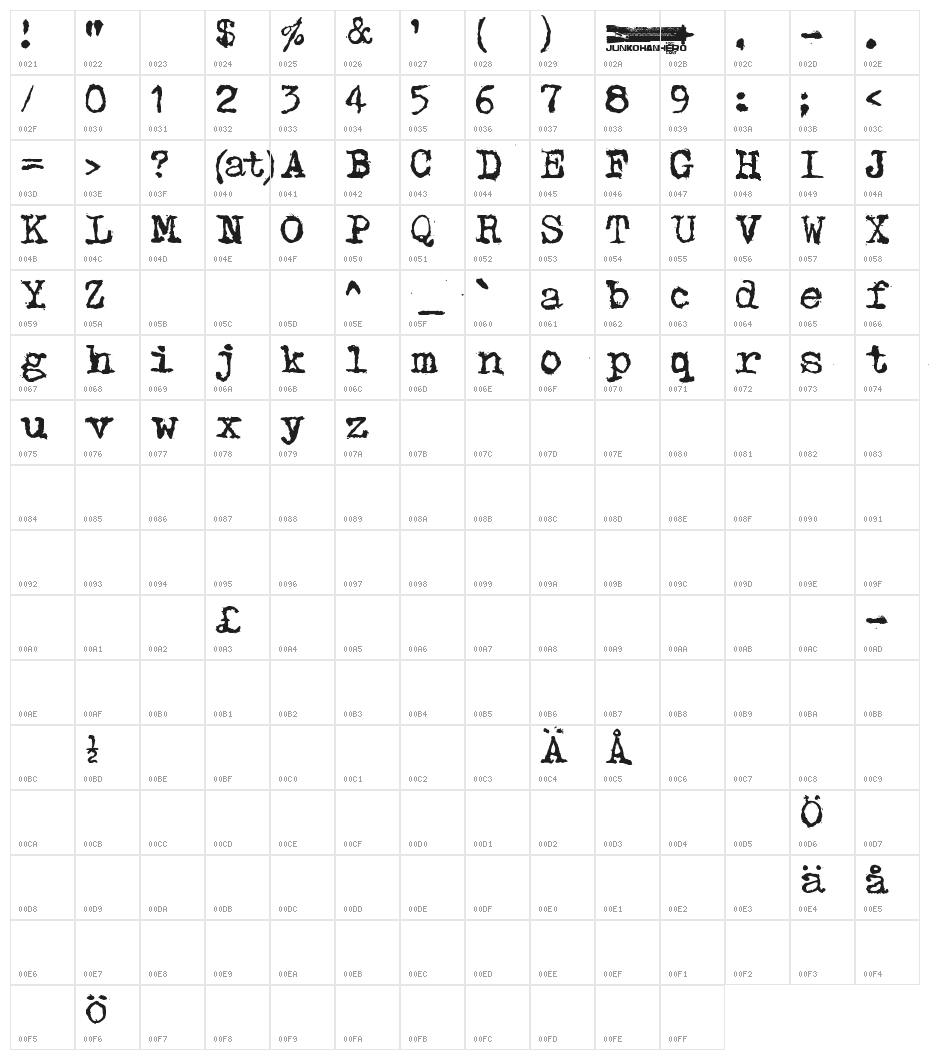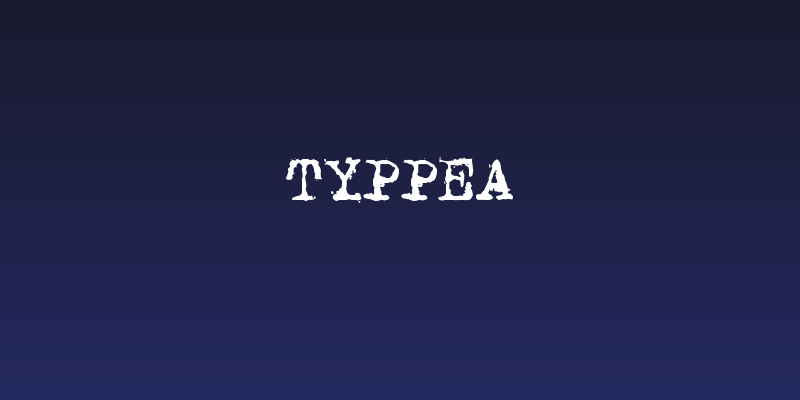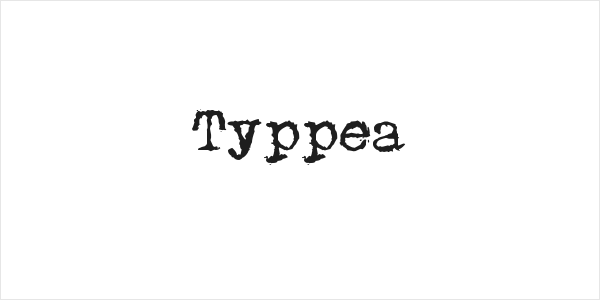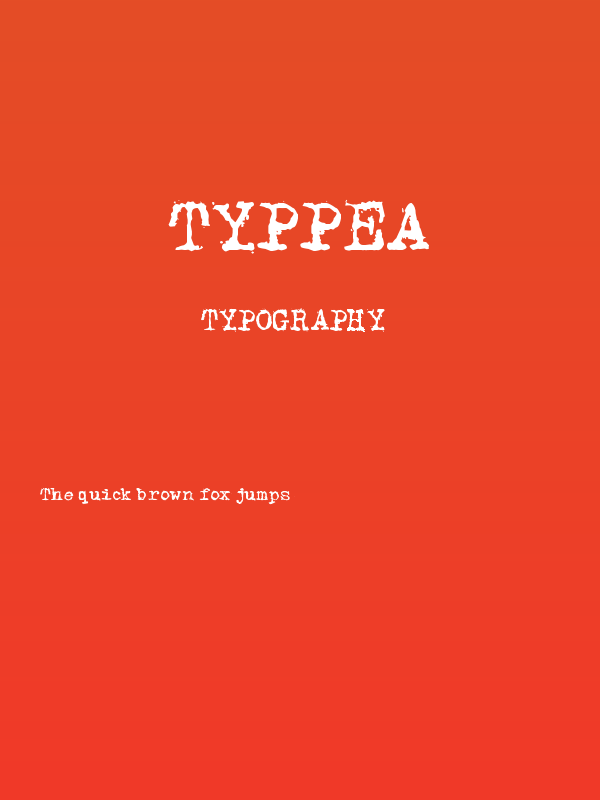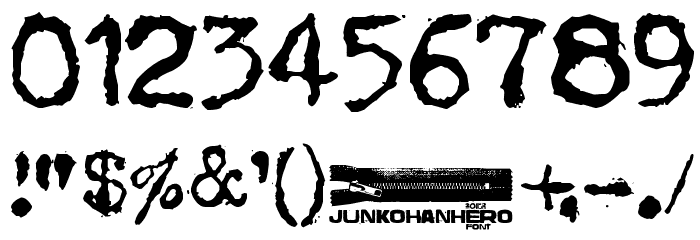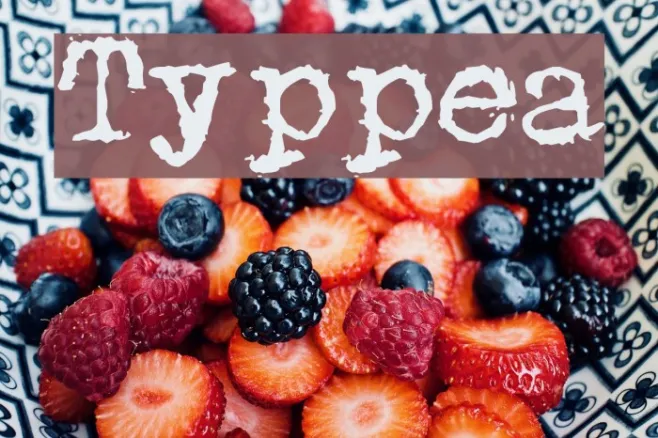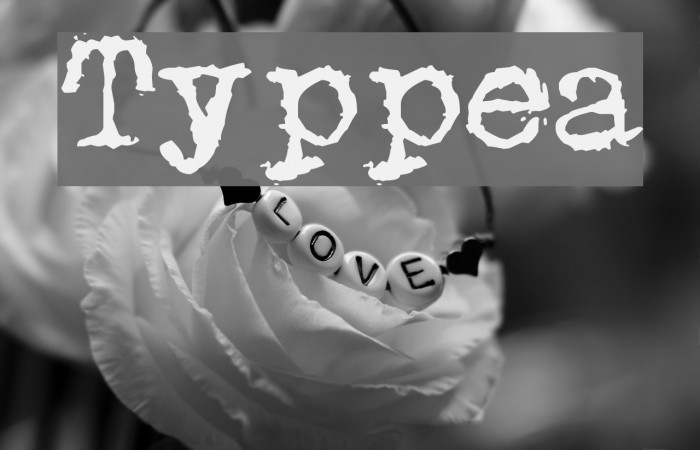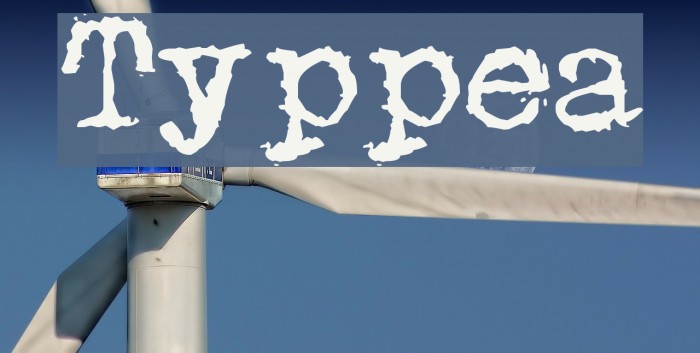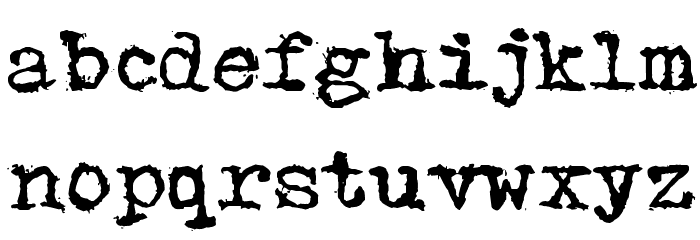
Typpea Font
Typpea Description
This font exhibits a rugged, distressed style with a hand-crafted appearance. The characters are bold and have a textured, grunge effect that gives them a worn, vintage feel. The uppercase and lowercase letters maintain a consistent style, with irregular edges and a slightly uneven baseline, enhancing the organic look. Numbers and special characters follow the same aesthetic, making the font cohesive across all glyphs. This style is reminiscent of typewriter fonts but with a modern, edgy twist, suitable for projects that require a bold statement.
| Overall Style | Vintage, Grunge |
| Proposed Projects | Ideal for album covers, posters, branding for edgy or alternative products, and any design needing a bold, vintage touch. |